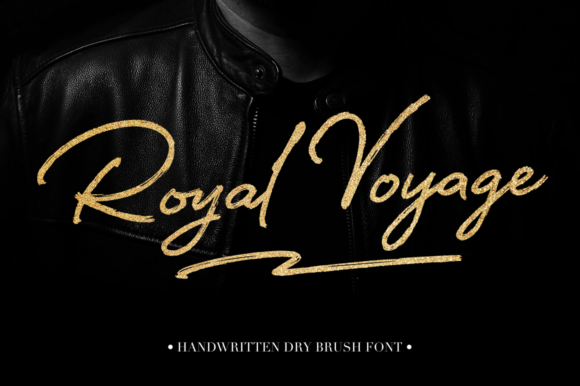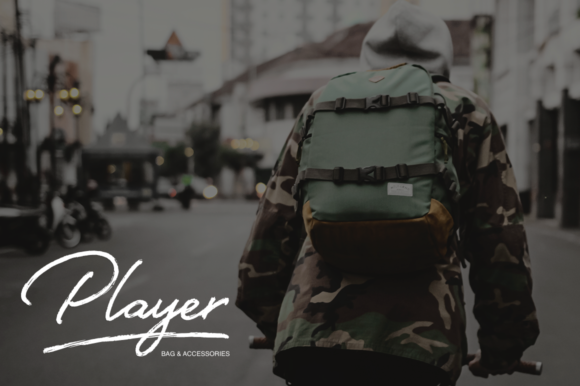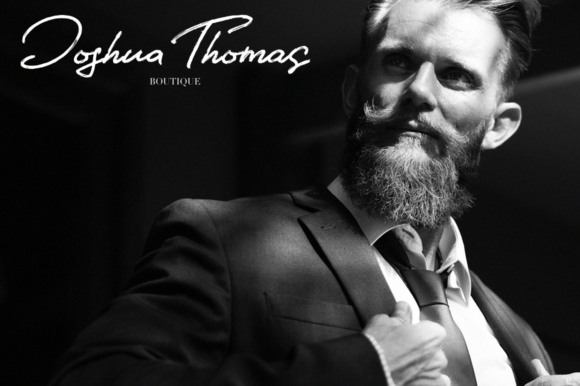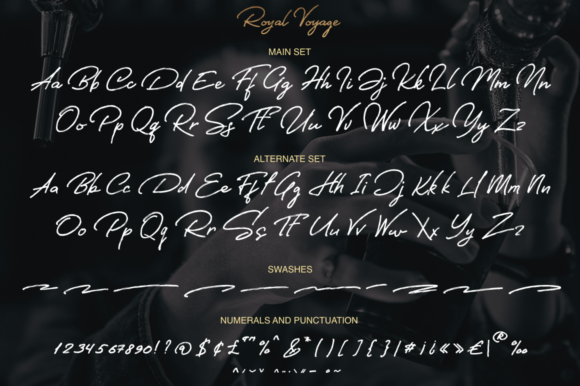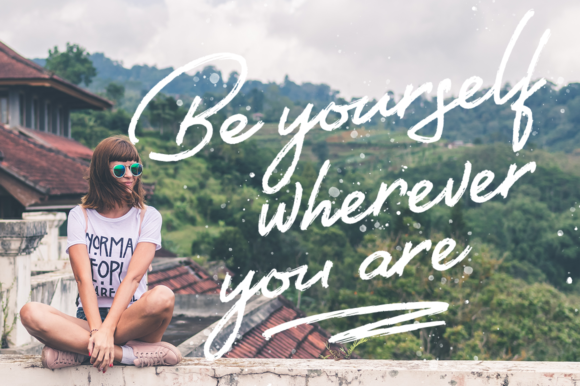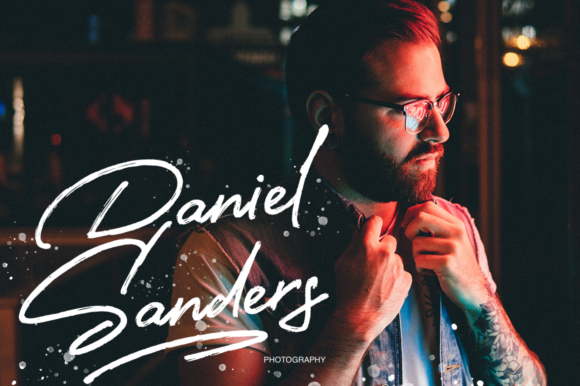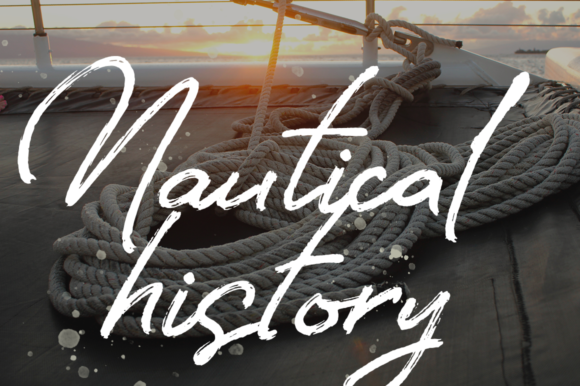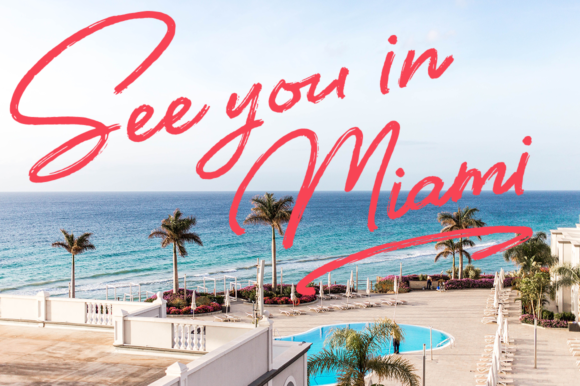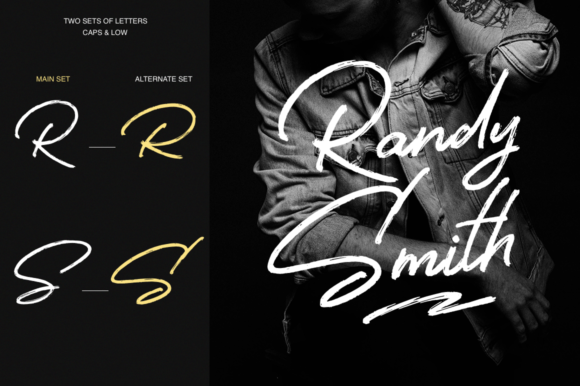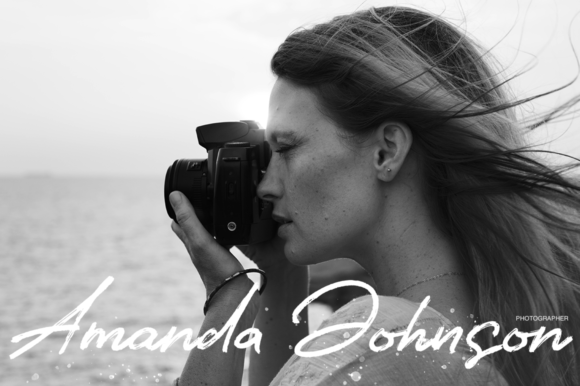
HomeScript FontsRoyal Voyage Font Script Fonts Royal Voyage Font FacebookXPinterestWhatsApp Royal Voyage Font Poster 2 Royal Voyage Font Poster 3 Royal Voyage Font Poster 4 Royal Voyage Font Poster 5 Royal Voyage Font Poster 6 Royal Voyage Font Poster 7 Royal Voyage Font Poster 8 Royal Voyage Font Poster 9 Royal Voyage Font Poster 10 Royal Voyage Font Poster 11 Royal Voyage Font Poster 12 About Royal Voyage Font The Royal Voyage is a new, fresh, handmade script font. It’s ideal for branding and decorating your projects. DOWNLOAD NOW People also explored Ikramcreations Font Bull Grunge Font Skateboard Font Rainbow Children Font Bigo Mandala Font Kite Script Font Mittwoch Fugel Font Snow Season Font 367 0 TagsRoyal Voyage Font Previous articleBallerina FontNext articleBis Spater Font LEAVE A REPLY Cancel reply Comment: Please enter your comment! Name:* Please enter your name here Email:* You have entered an incorrect email address! Please enter your email address here Website: Save my name, email, and website in this browser for the next time I comment. Personal Use Free Rosebirth Personal Use Free Read more about this font Sabina Illusion Personal Use Free Read more about this font Hysteria Santa Personal Use Free Read more about this font Christmas Diary Personal Use Free Read more about this font BLOG Elegant Wedding Invitation Fonts – Handwritten & Script Fonts Elegant Wedding Invitation Fonts Your wedding day is one of the most important moments of your life, and every detail matters—including your invitation design. Our... Exploring Font Trends 5 Fonts That Will Dominate Design Trends in 2026 Transform Your Website: Elevate Your Typography with 7 Best Web Font Generators